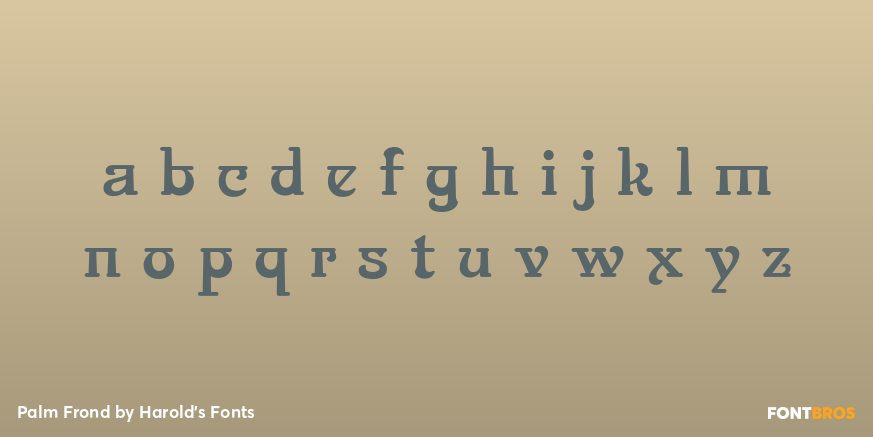
Palm Frond
Font Family by Harold's Fonts
PALM FROND is a stylish display font inspired by a 19th-century typeface. Broad swashes give a feeling of Art Nouveau and horizontal strokes suggest Indian scripts.